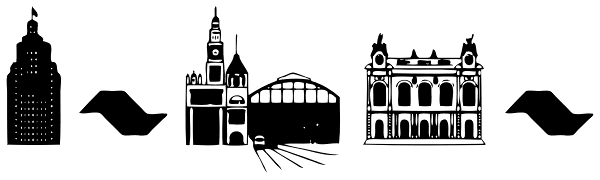
Sampa
The project aims to represent icons through the city of São Paulo. The image selection method prioritized elements of history culture and daily life. The claim is that the set of graphic symbols help disseminate one of the most important cities of...